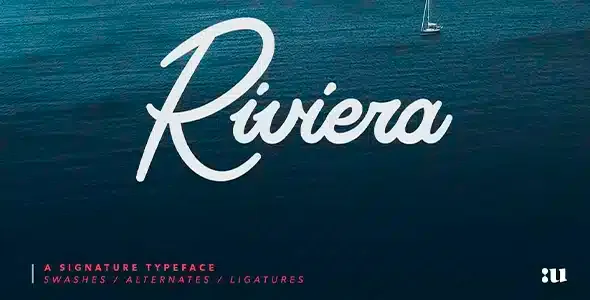
Riviera Signature Premium Font
Riviera Signature Premium Font is a modern and elegant signature font that has been designed with smooth curves and sophisticated strokes.
This elegant monoweight calligraphy font has been carefully designed to look as close to natural handwritten script as possible and is certainly ideal for any eCommerce brand, blog, social channel or any modern business that wants to have a distinctive look.
Use it interchangeably to add a unique touch to any branding project!
Riviera Signature Premium Font also offers a beautiful typographic harmony with over 400 characters and covers several languages based on the Latin alphabet; the entire font design has also been completed with several alternates, 57 natural-looking ligatures, and some attractive swashes.